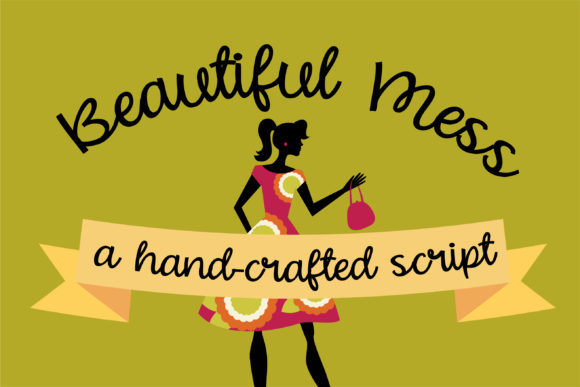
Beautiful Mess Font
Introducing Beautiful Mess Font: The Perfect Font for Adding a Touch of Personal Charm to Your Creative Projects
Embark on a captivating journey with Beautiful Mess Font, a mesmerizing script font designed to add a touch of personal charm to your creative projects. Inspired by the art of hand-lettering, this font family radiates a casual, hand-crafted aesthetic that captivates your senses and leaves a lasting impression.
Designed with a medium weight and flowing curves, Beautiful Mess Font is a dream to work with. Its effortless elegance lends itself perfectly to a wide range of applications, including crafting, writing, and graphic design. Whether you're creating personalized invitations, heartfelt letters, or eye-catching posters, this font adds a touch of artistry and authenticity that elevates your designs to the next level.
Unleash your creativity and explore the boundless possibilities with Beautiful Mess Font. Capture the essence of handwritten notes with its organic flow, or infuse your digital designs with a touch of warmth and sophistication. The font's versatility shines in both personal and professional settings, making it a must-have for any design enthusiast.
As a sister print to the enchanting ZP Beautiful Mind font, Beautiful Mess Font forms a dynamic duo that harmonizes perfectly to create standout designs. Together, they offer endless opportunities to mix and match, creating cohesive and visually stunning projects that leave a lasting impact on your audience.
Elevate your creative projects with Beautiful Mess Font, the font that captures the essence of beauty in its imperfections. Its unique charm and versatility make it the perfect choice for adding a touch of personal style to your designs. Embrace the beauty of the unexpected and make a statement with every word you write.